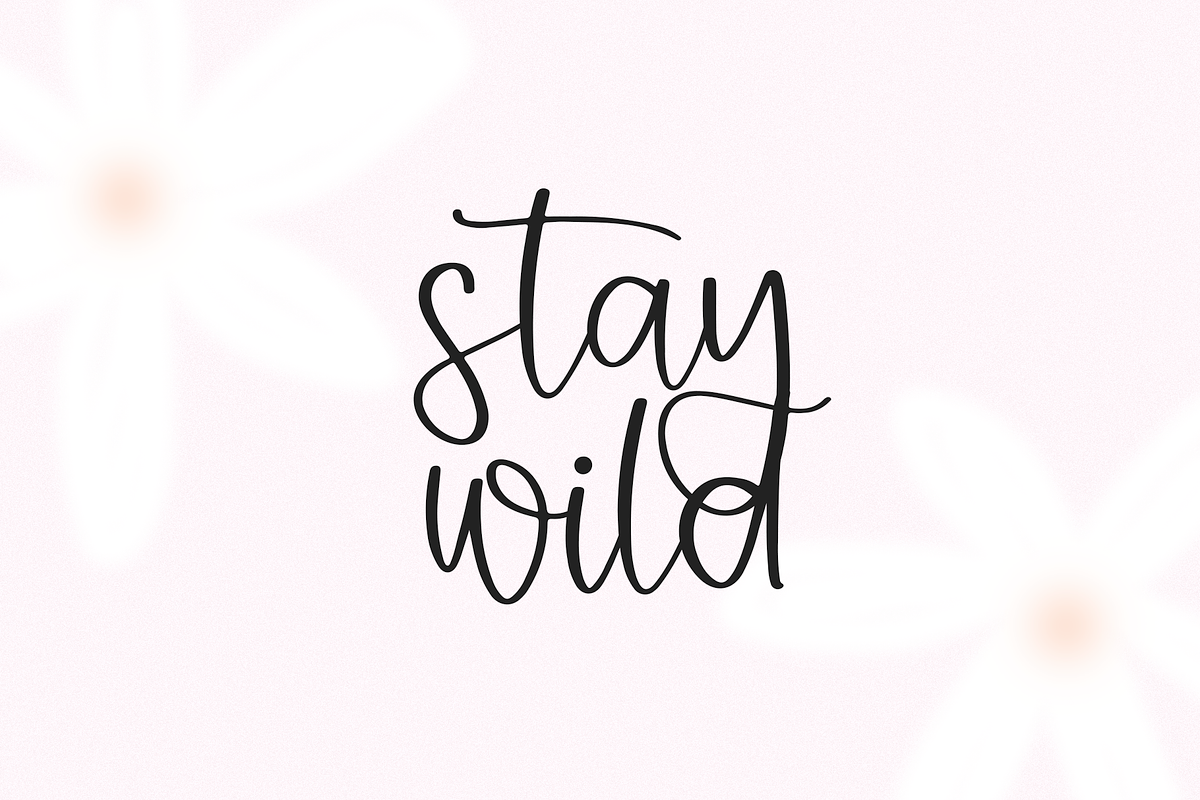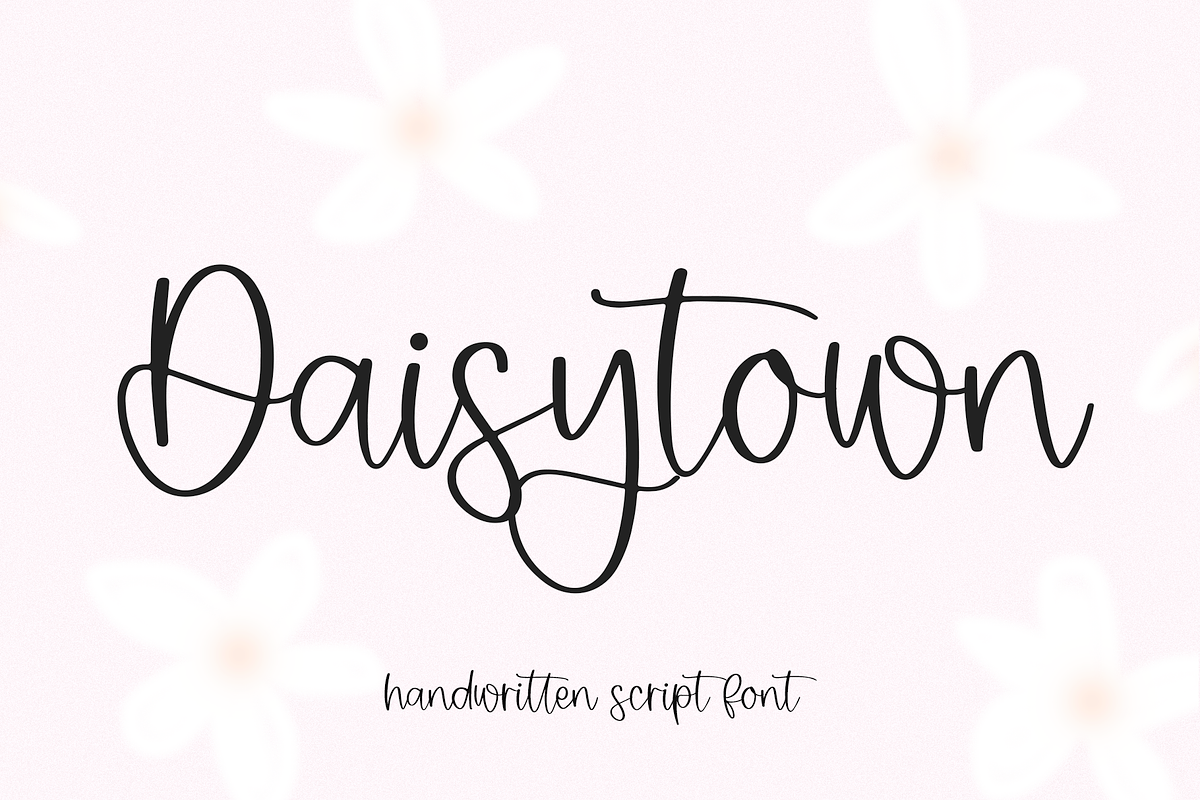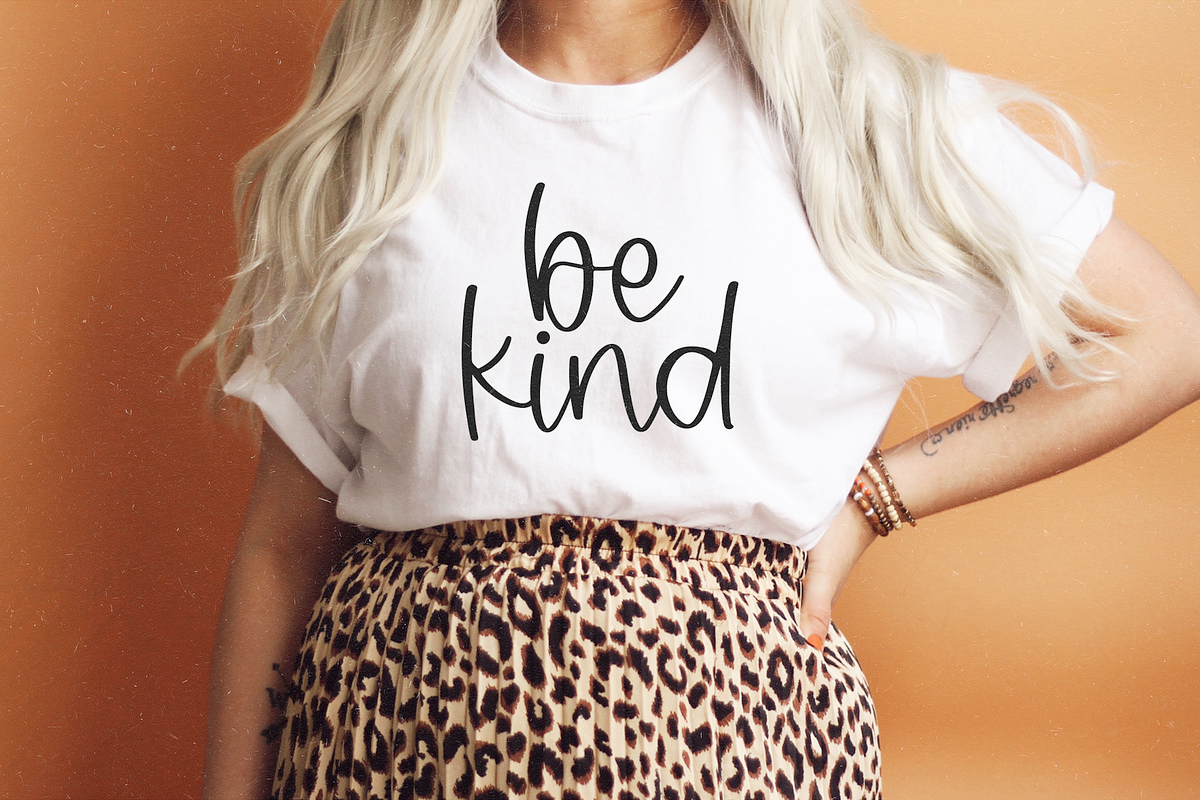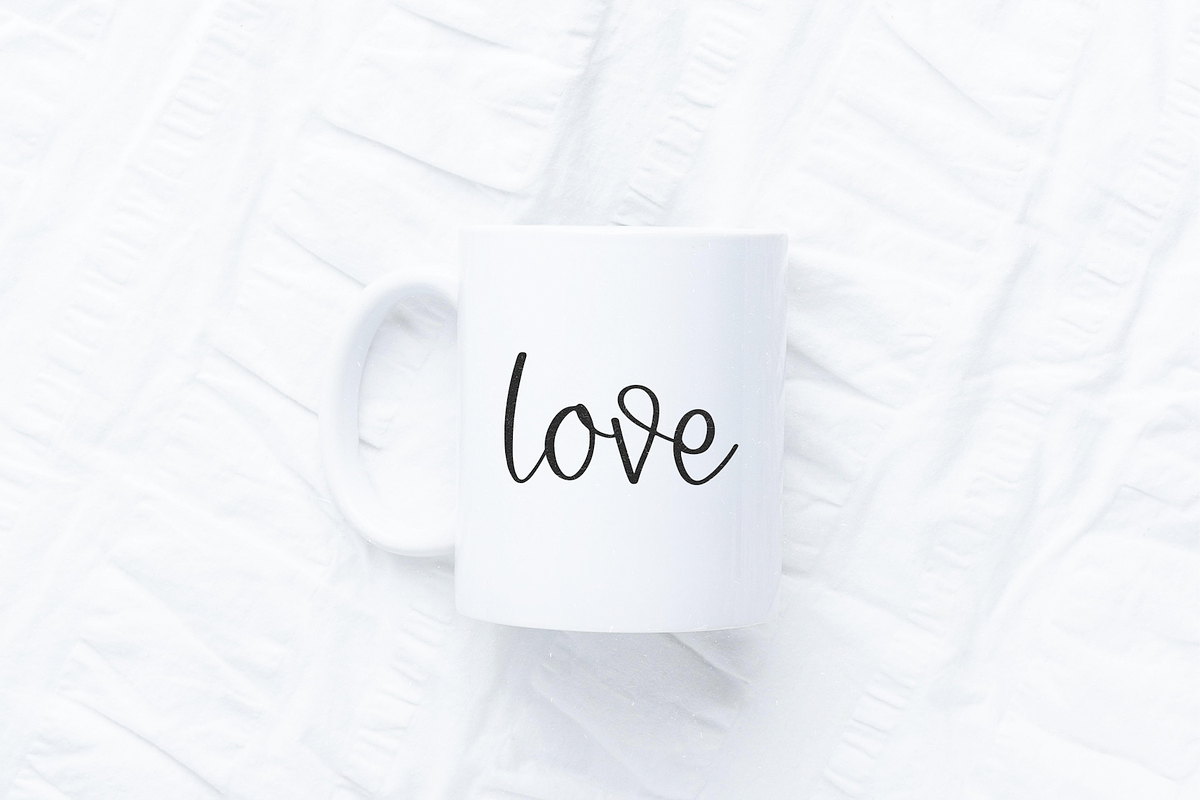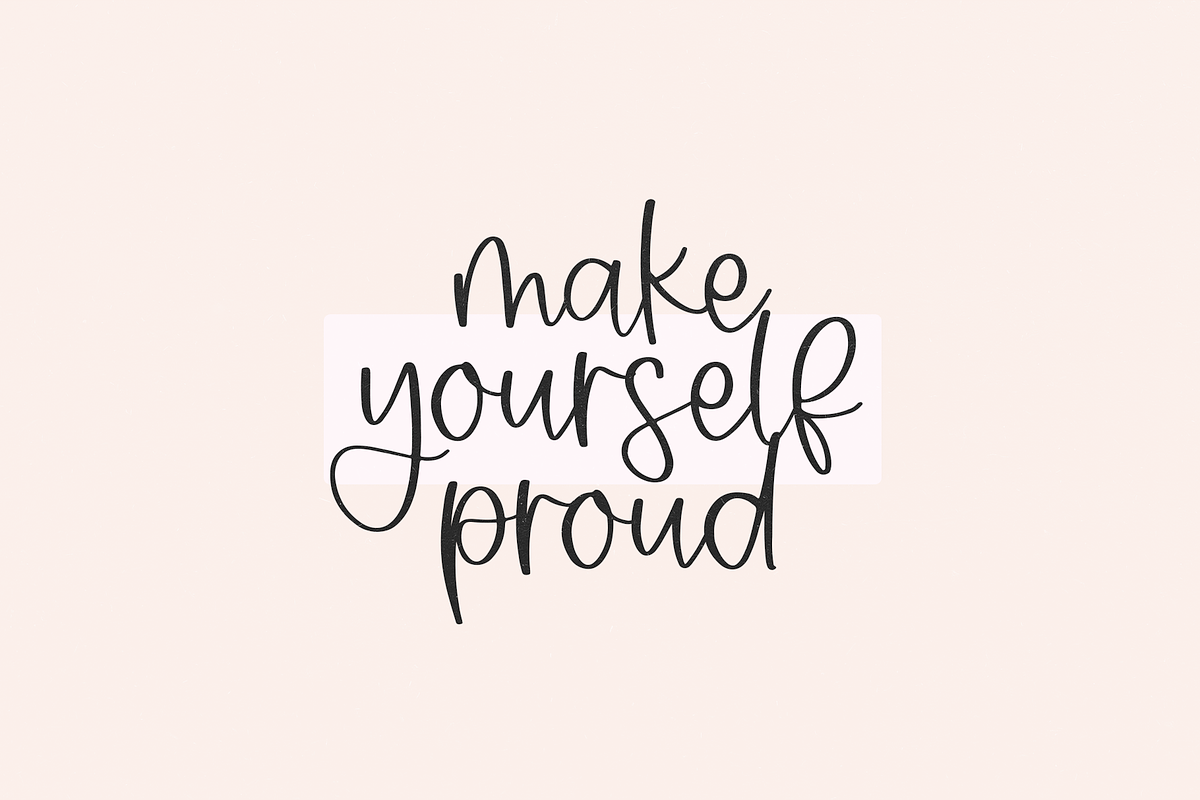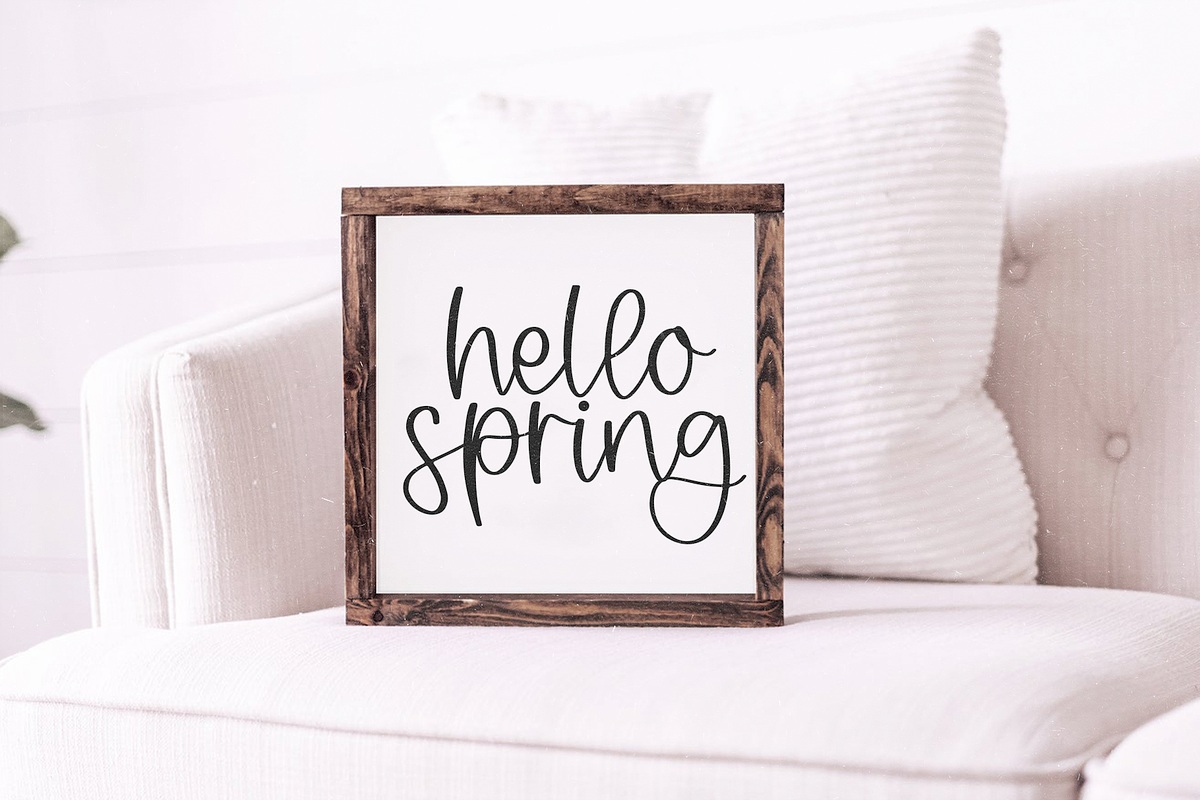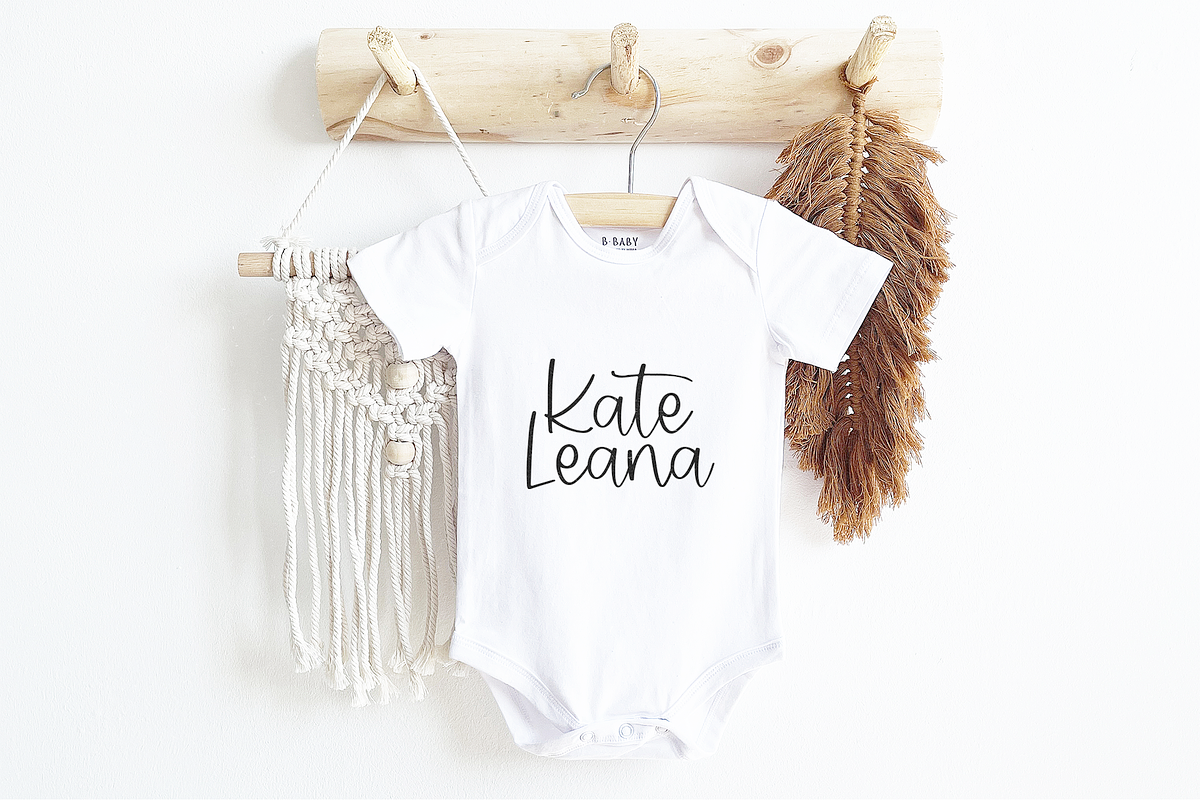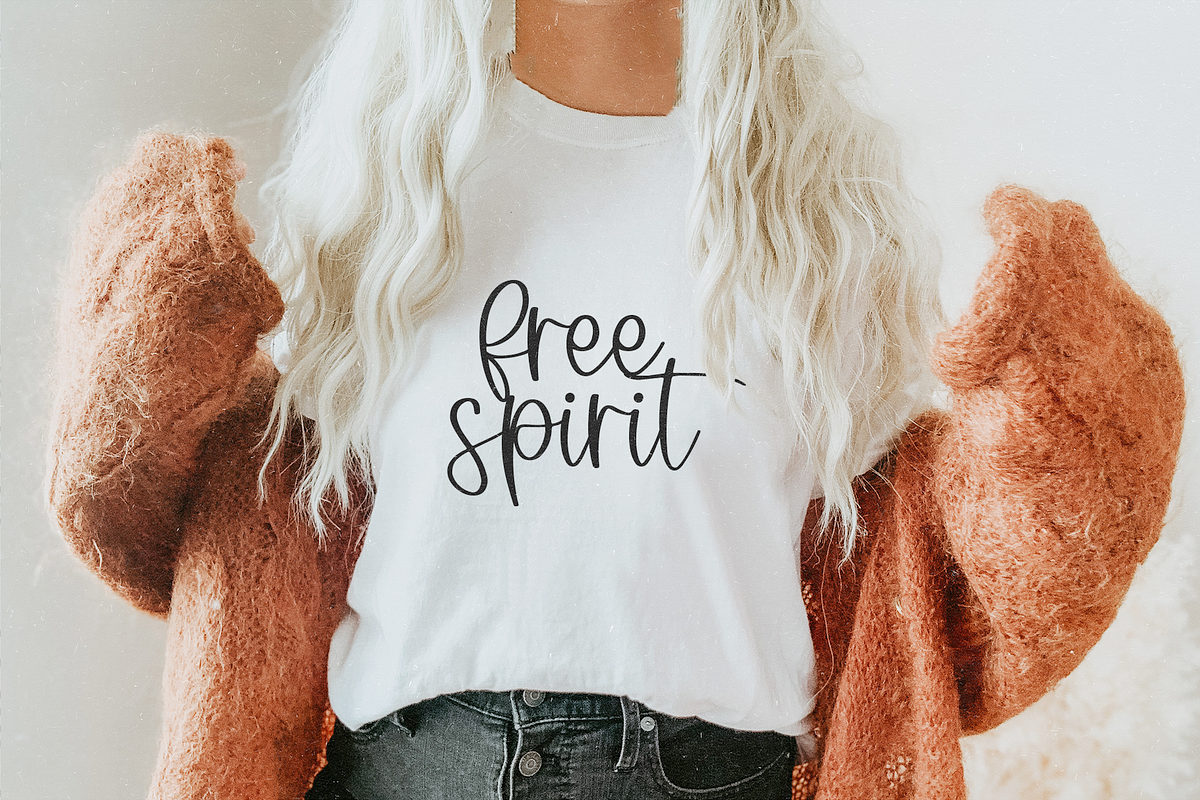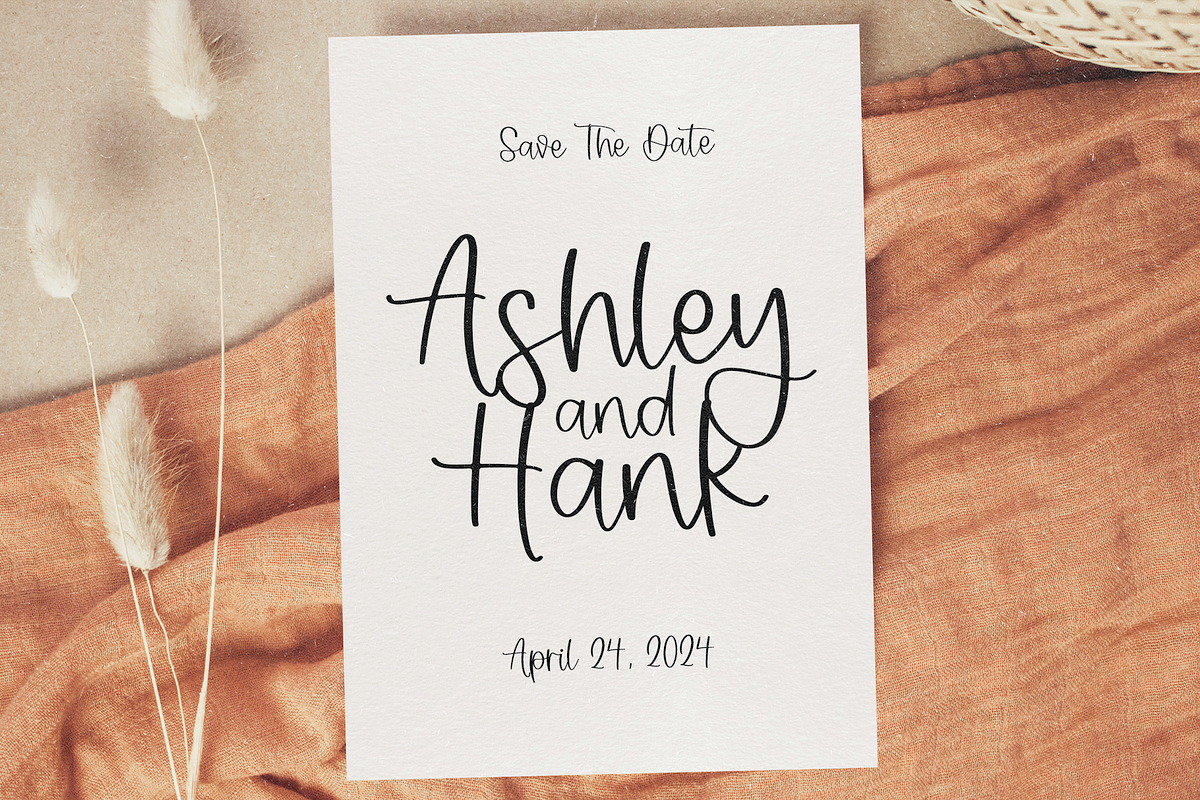
Daisytown | Modern Script Font
Daisytown is a modern script font with a boho vibe!
This font is perfect for branding, shirts, crafts, farmhouse signs, svg designs, procreate, cricut projects, blogs, logos, invitations and more!